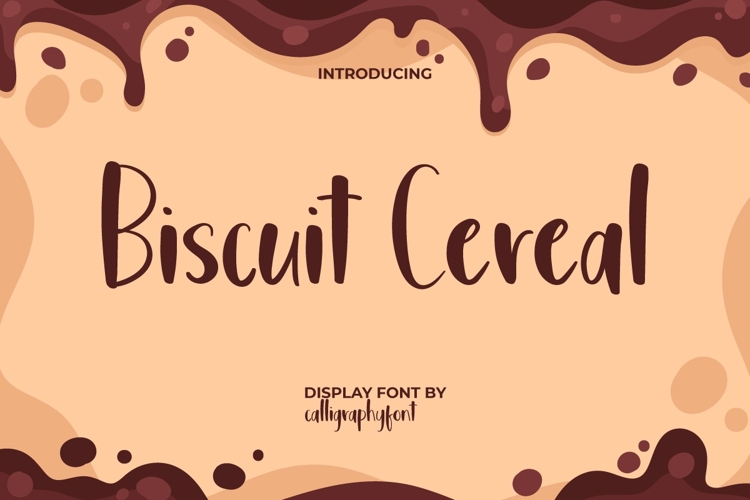
Biscuit Cereal Font
Biscuit Cereal Font is a sweet display font that brings a handcrafted touch and will complement your designs, such as blogs, brand identity, brochure, business cards, cover, flyer, greeting cards, header, headline, invitation, logo design, packaging design, art posters, quotes, restaurant menu, screen print, stationery, title, website, much more!
Biscuit Cereal Font is inspired by the theme of sweet food so it can bring a natural and carefree feeling. This will make it the sweetest font you’ve ever seen! It will play an important role in whatever your industry, such as bakery or pastries, cafe, candy shop, event organizer, fashion, graphic design, handicraft, movie, photography, printing, publishing, and more.